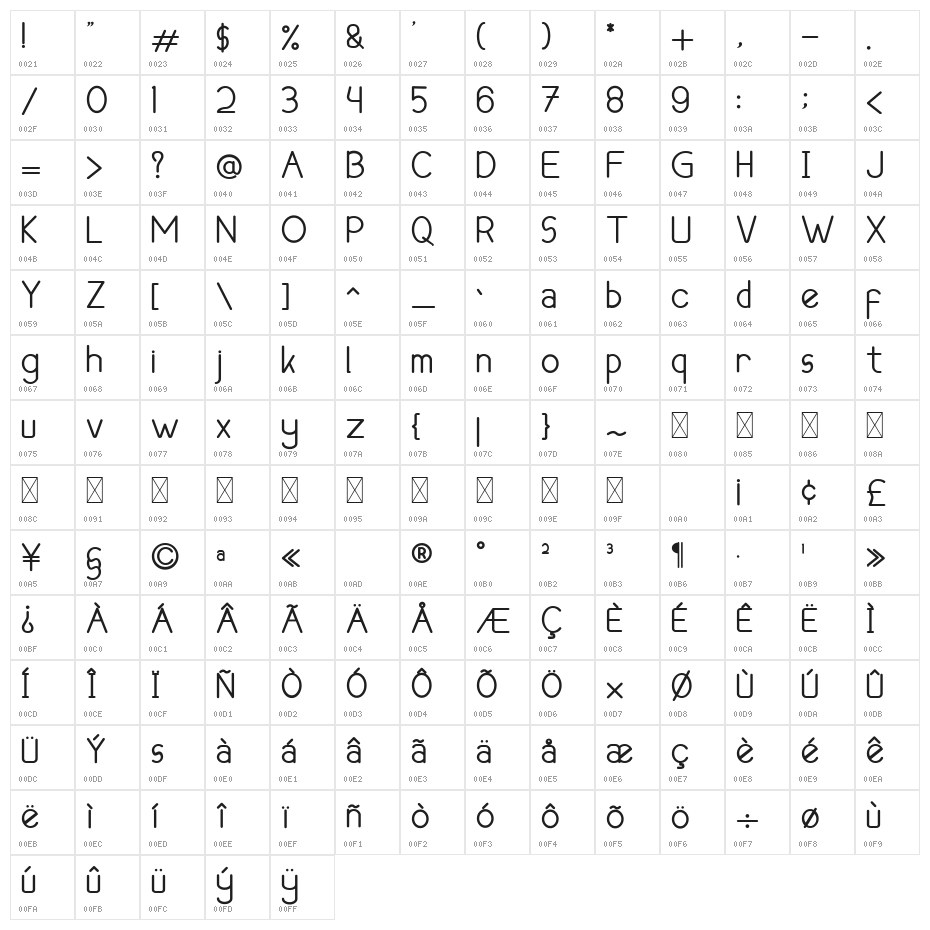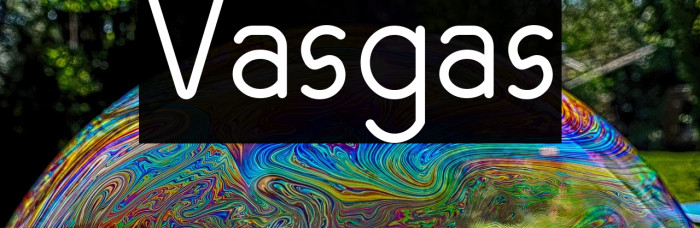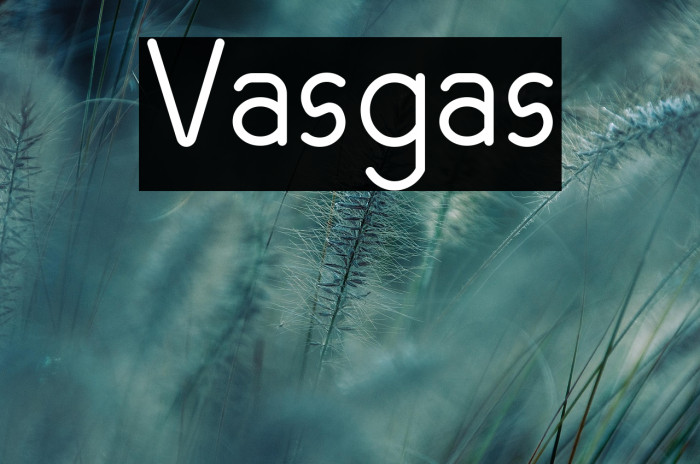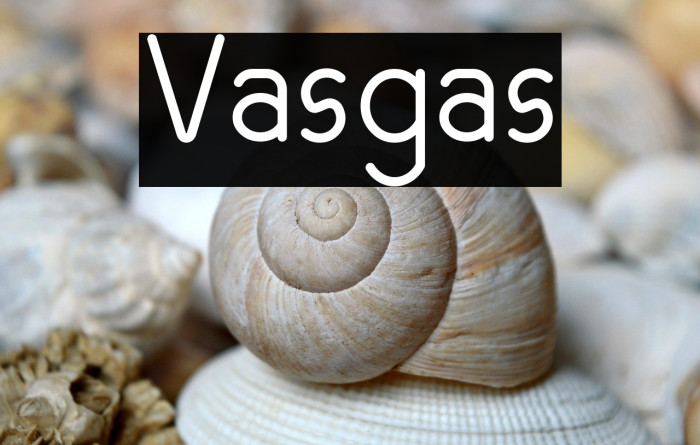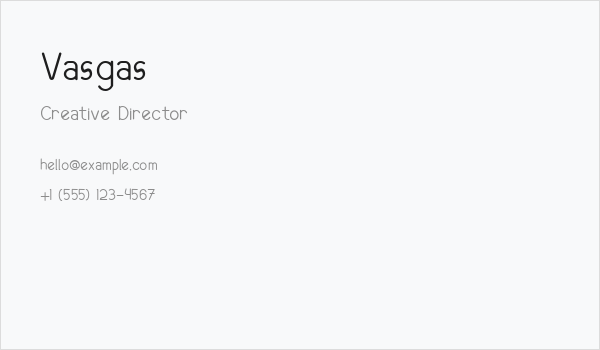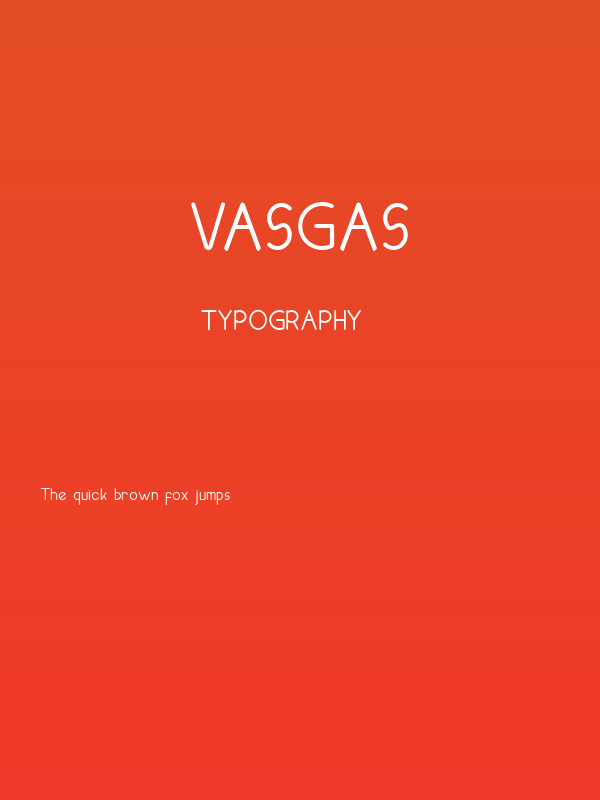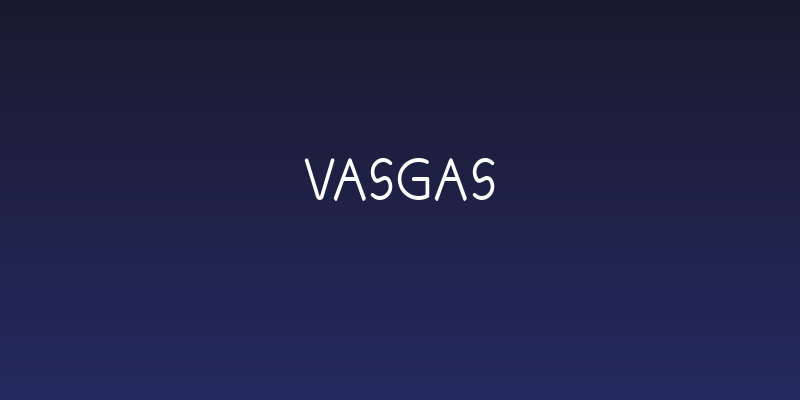
Vasgas Font
Vasgas Description
This font features a clean and modern design with rounded edges and a uniform stroke width, giving it a friendly and approachable appearance. The characters are well-proportioned, with a slight geometric influence that adds to its contemporary feel. The uppercase letters are bold and clear, while the lowercase letters maintain a consistent style that complements the overall look. The numerals are straightforward and easy to read, making them suitable for various applications. Special characters are included, maintaining the same rounded and modern aesthetic.
| Proposed Projects | Ideal for branding, digital interfaces, children's books, and educational materials. |